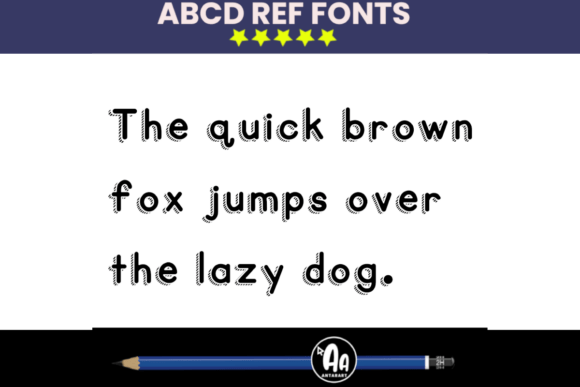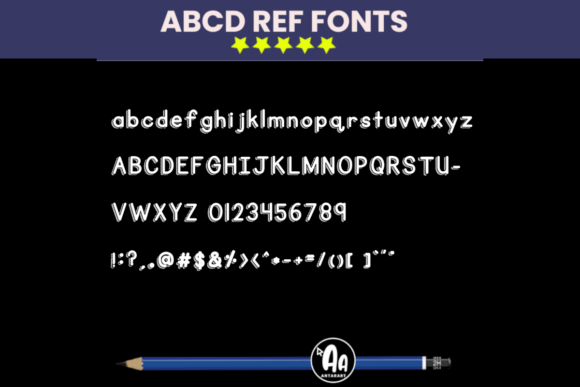
A Creative Touch for Your Projects
Have you ever stood in front of a blank wall, surrounded by a sea of possibilities, and felt the itch to create something truly special? For many of us, it’s a moment that sparks a flood of imagination and creativity. Whether you’re a teacher looking to add a personal touch to your classroom or a crafter seeking the perfect embellishment for your latest project, the right font can be the key to unlocking your full potential.
That’s where the Acd Ref Shadows Sketched Font comes in – a charming, hand-drawn alphabet and number set designed to add a playful, chalkboard-inspired touch to your work. Perfect for bulletin board titles, posters, banners, and labeling, this font is as versatile as it is adorable. And for designers, its unique sketched shadow effect makes it a valuable addition to any creative arsenal, offering endless possibilities for both playful and modern themes.
Acd Ref Shadows Sketched Font Key Features
- Font Family: Acd Ref Shadows Sketched Font
- Character Count: 800+ glyphs, including Latin, Cyrillic, and Greek alphabets
- Unique Characteristics:
- Hand-drawn and sketched design with subtle texture and shading effects
- Perfect for creative and artistic projects, such as branding, packaging, and advertising
Acd Ref Shadows Sketched Font Review
Overall, I think Acd Ref Shadows Sketched Font has some great qualities that make it a solid choice for certain projects, but it’s not without its limitations.
- The font has a unique, hand-drawn feel that can add a lot of character to a design.
- The varying weights and styles offer a good range of options for creating visually interesting typography.
- The font is highly legible, even at smaller sizes, which is essential for effective communication.
- The font may not be the best choice for projects that require a lot of technical precision, as the hand-drawn feel can sometimes make it difficult to read.
- The font is not suitable for use in small text sizes, as the strokes can become too thin and difficult to read.
- The font’s unique style may not be to everyone’s taste, which could limit its appeal in certain design contexts.
I think Acd Ref Shadows Sketched Font is a great choice for designers who want to add a touch of personality to their projects, but it’s not a one-size-fits-all solution. With careful consideration and use, it can be a valuable addition to any design toolbox.
To get the most out of Acd Ref Shadows Sketched Font, try using it for:
Titles and headings to add a touch of elegance.
Labels and tags to create a vintage or distressed look.
Use it in combination with other fonts to create a unique and interesting typography.
Acd Ref Shadows Sketched Font is perfect for:
Branding and logo design.
Marketing materials, such as brochures and flyers.
Web design and digital marketing.
Great Vibes is a beautiful script font that is perfect for creating a sense of elegance and sophistication. It is ideal for use in invitations, wedding stationery, and other high-end designs.
Compared to Acd Ref Shadows Sketched Font, Great Vibes is more refined and less rough around the edges. It is a great choice for designers who want to add a touch of luxury to their designs.
Pacifico is a beautiful, modern script font that is perfect for creating a sense of relaxation and calmness. It is ideal for use in beach-themed designs, travel brochures, and other designs that require a sense of adventure.
Compared to Acd Ref Shadows Sketched Font, Pacifico is more laid-back and casual. It is a great choice for designers who want to create a sense of freedom and adventure in their designs.